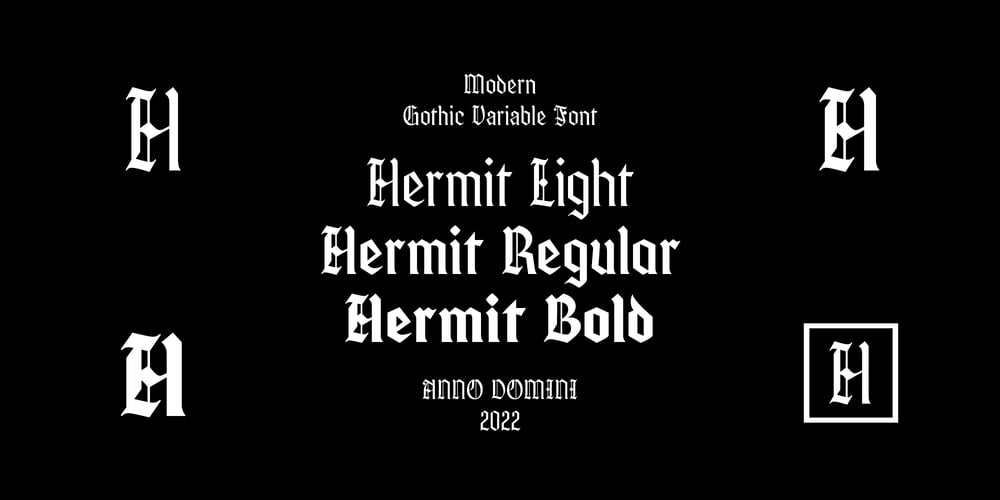
Hermit Font Family was designed by Davide Romito and published by Davide Romito. Hermit contains 4 styles and family package options. Hermit was born like a modern and personal reinterpretation of Gothic-style alphabets, where improvisation and personal taste have led the design towards a new aesthetic mix between gothic and modern typefaces, creating new glyphs with tweaked strokes to achieve a good level of legibility. Hermit is a modern gothic font designed for brave designers and for epic designs, available in three weights and variable fonts. It is good to use for Branding and Editorial projects with texts not too small, Advertising, Packaging, Labeling, and Book or Magazine titles.